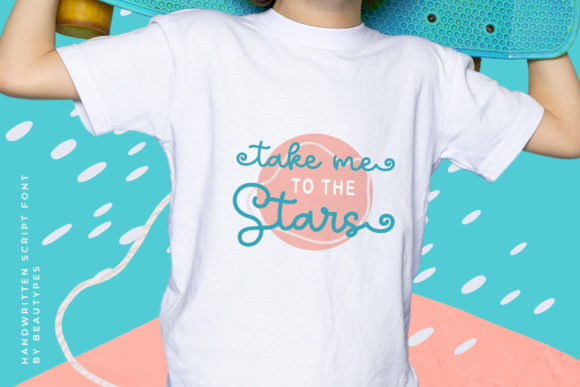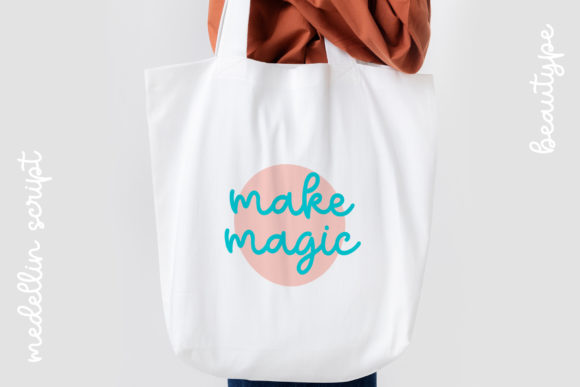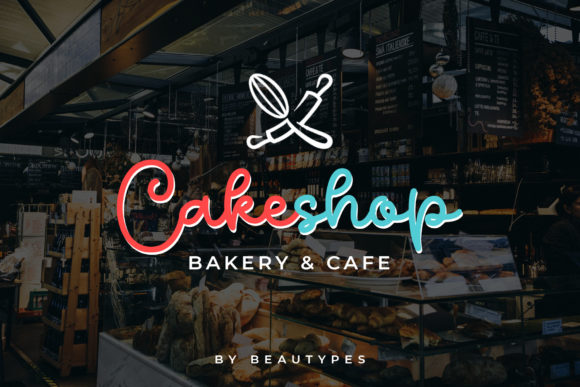
About Medellin Script Font
Medellin Script, a smooth hand-lettered monoline script font. Fall in love with its delicate and authentic charm and extensive set of unique characters.